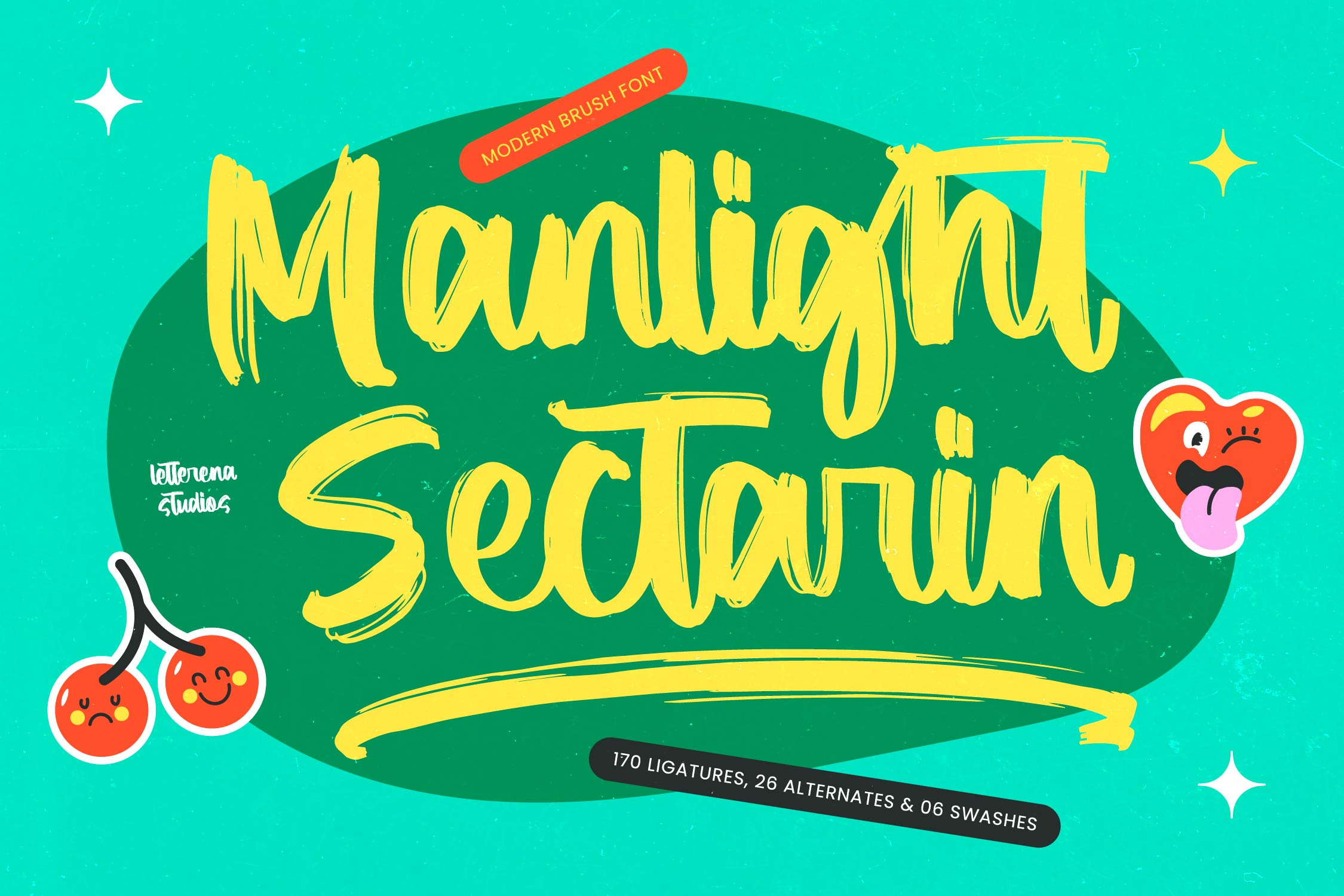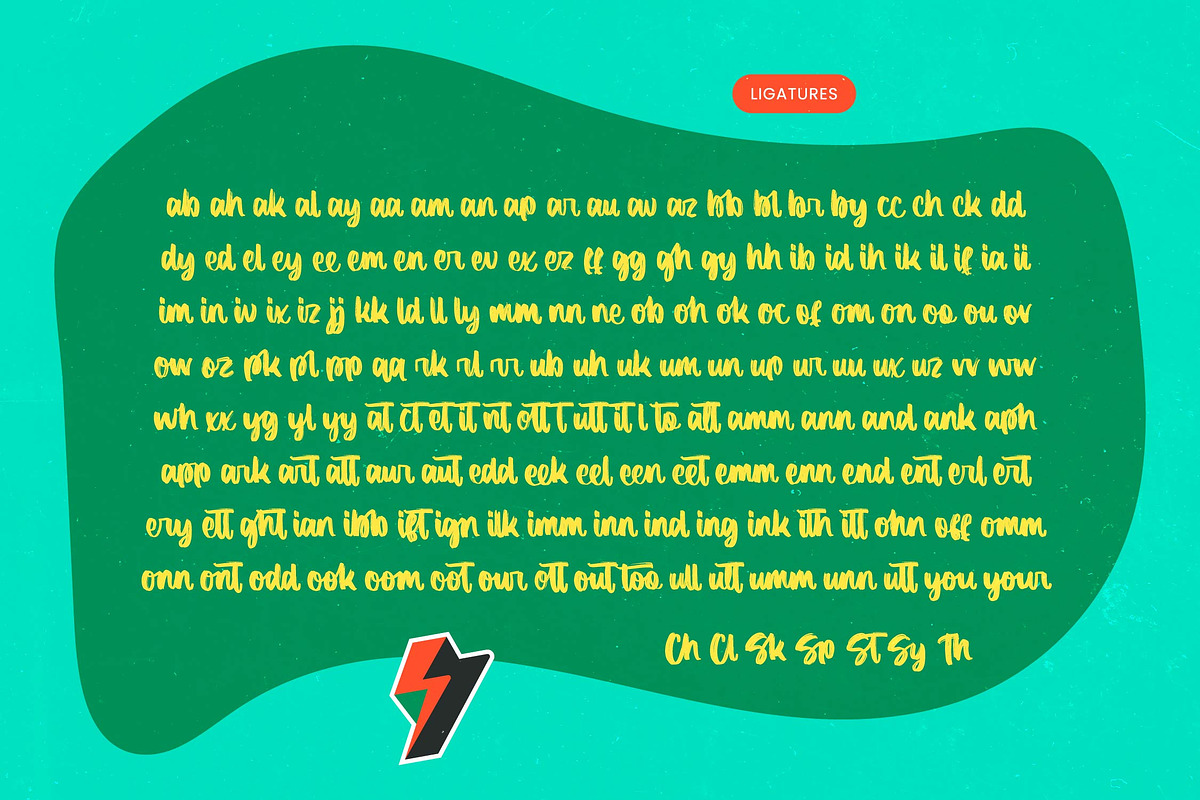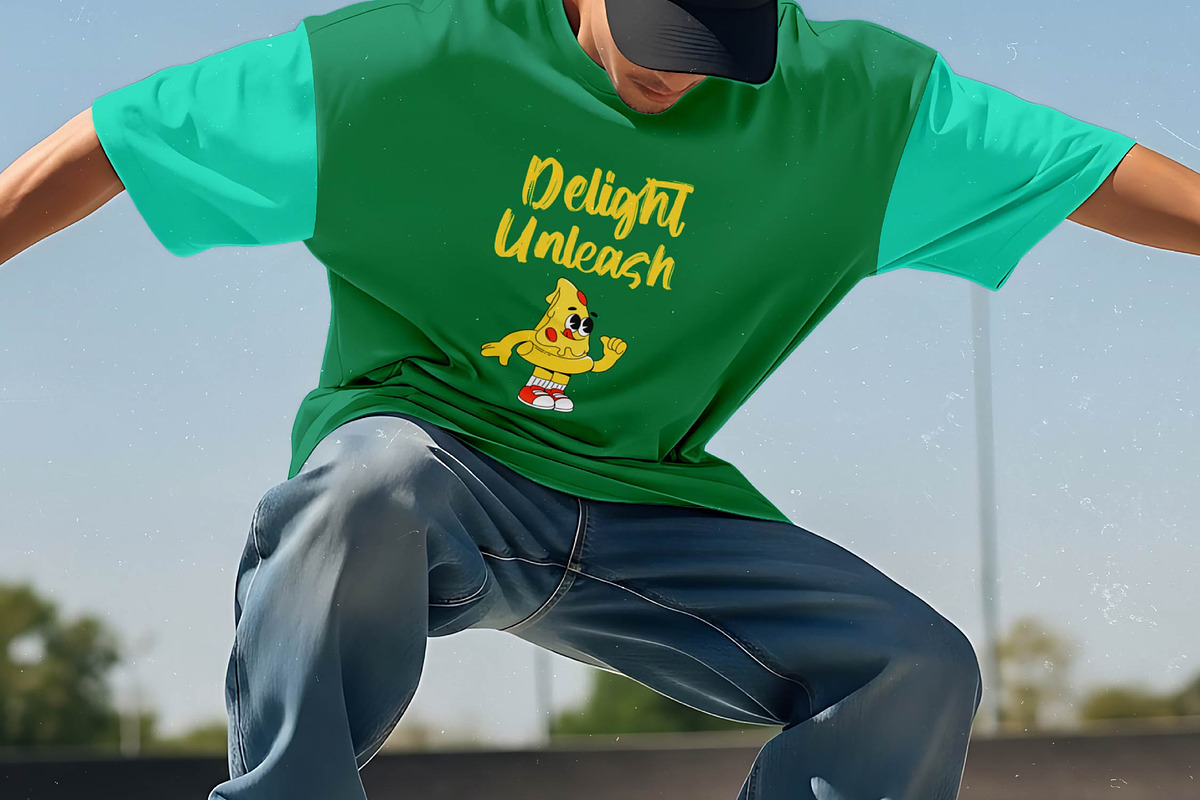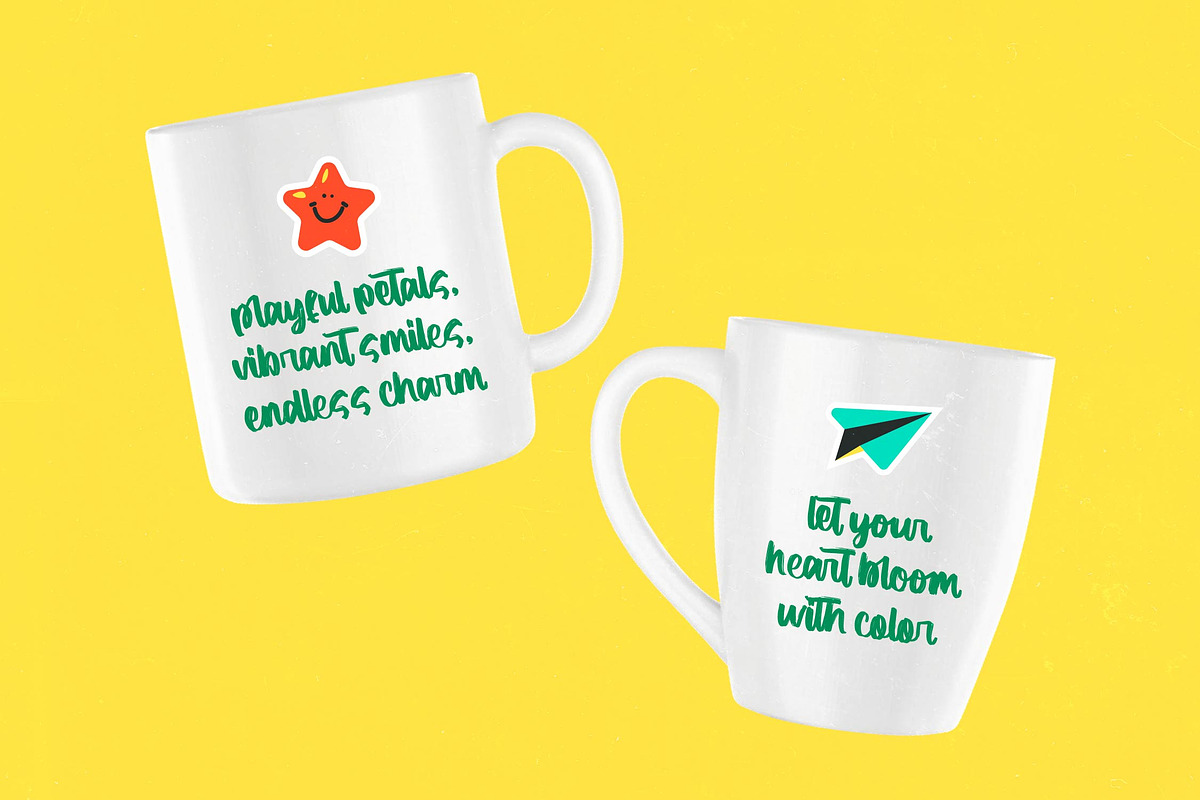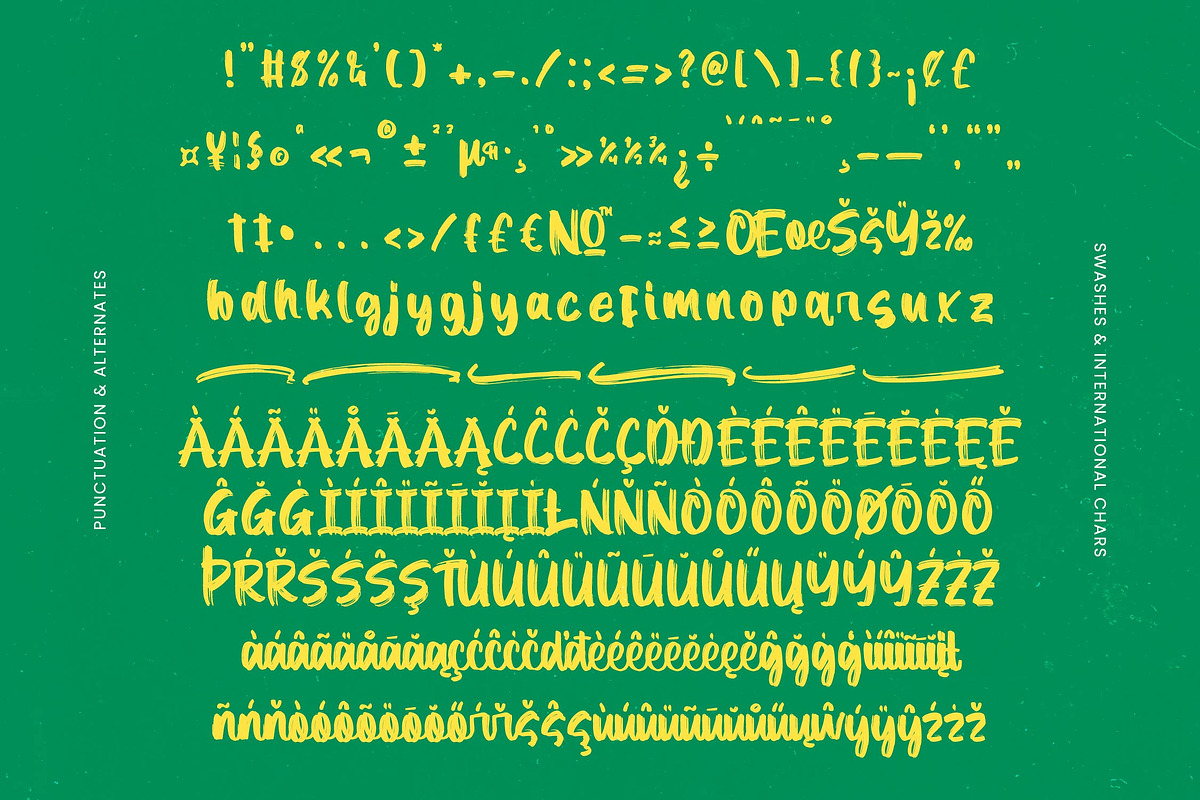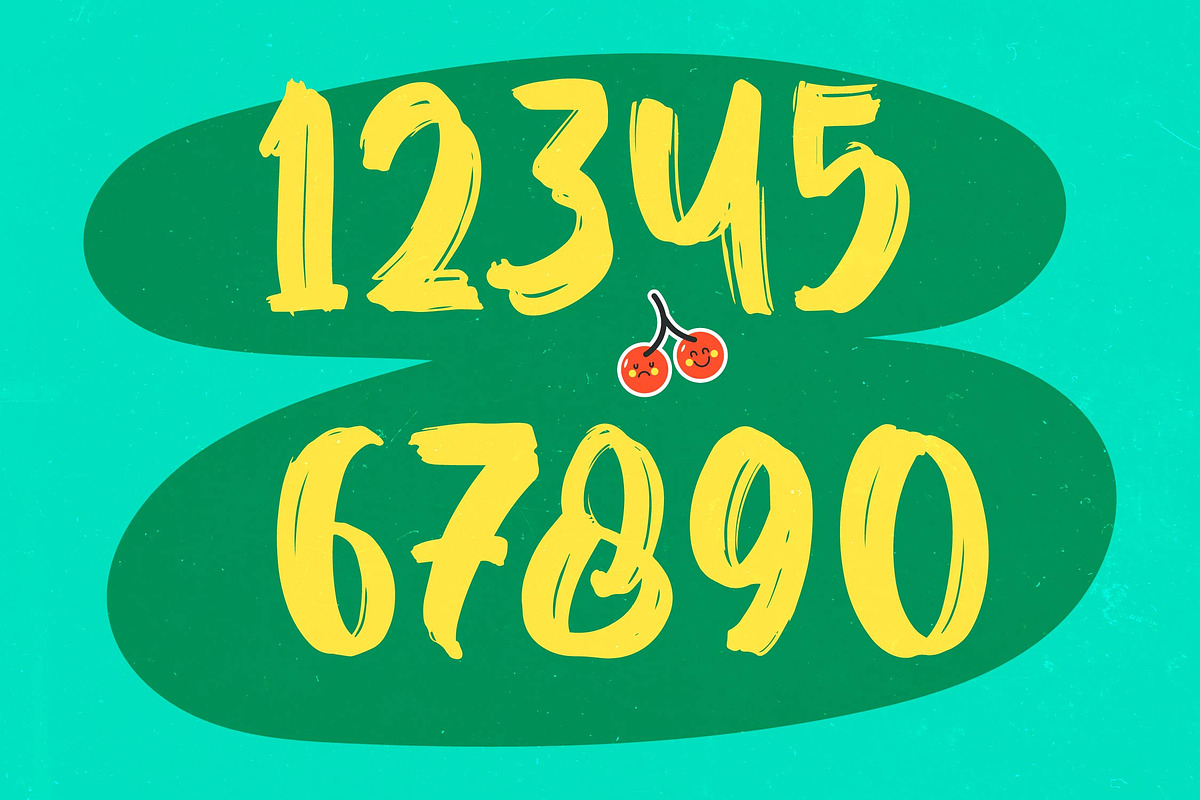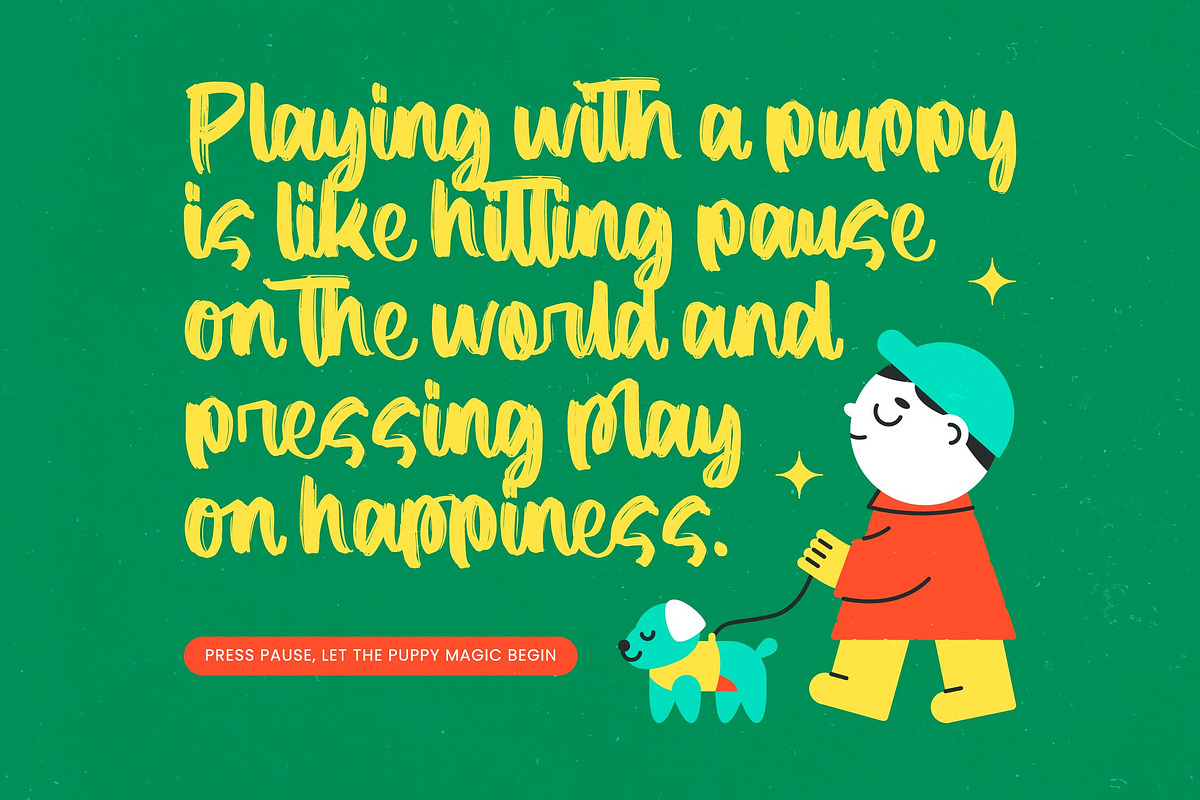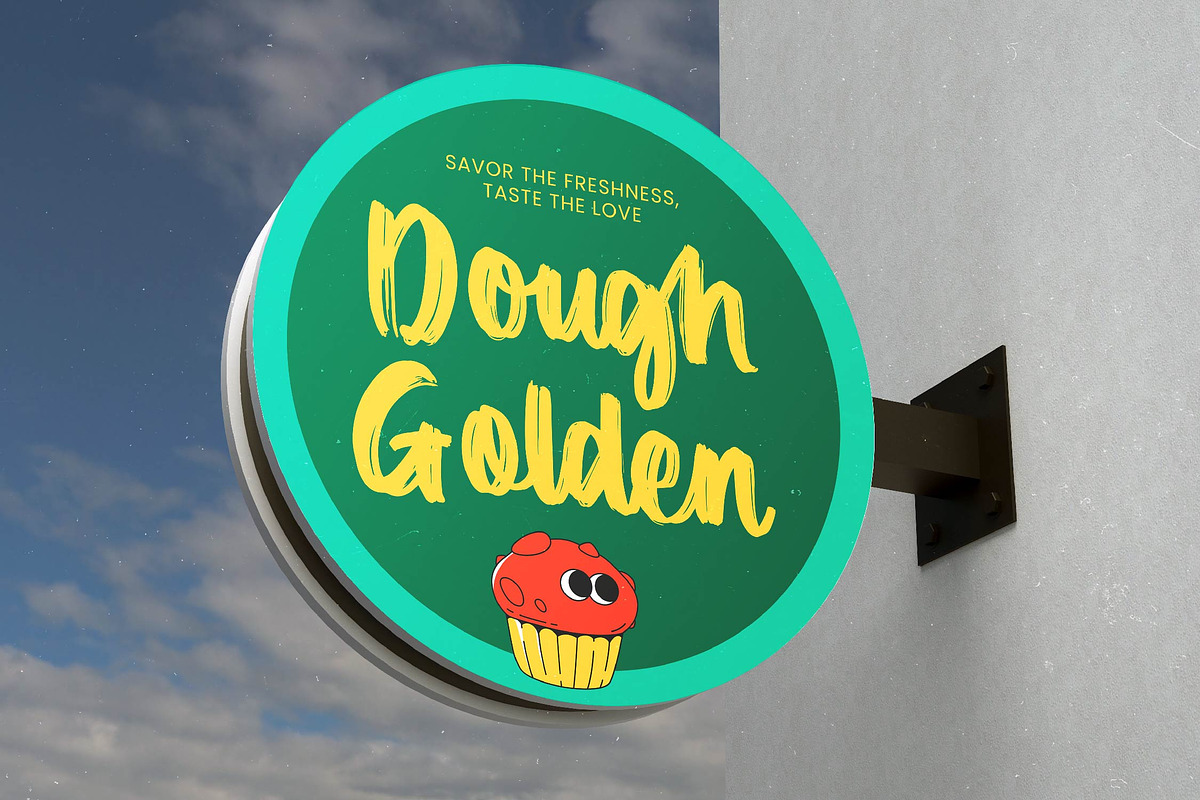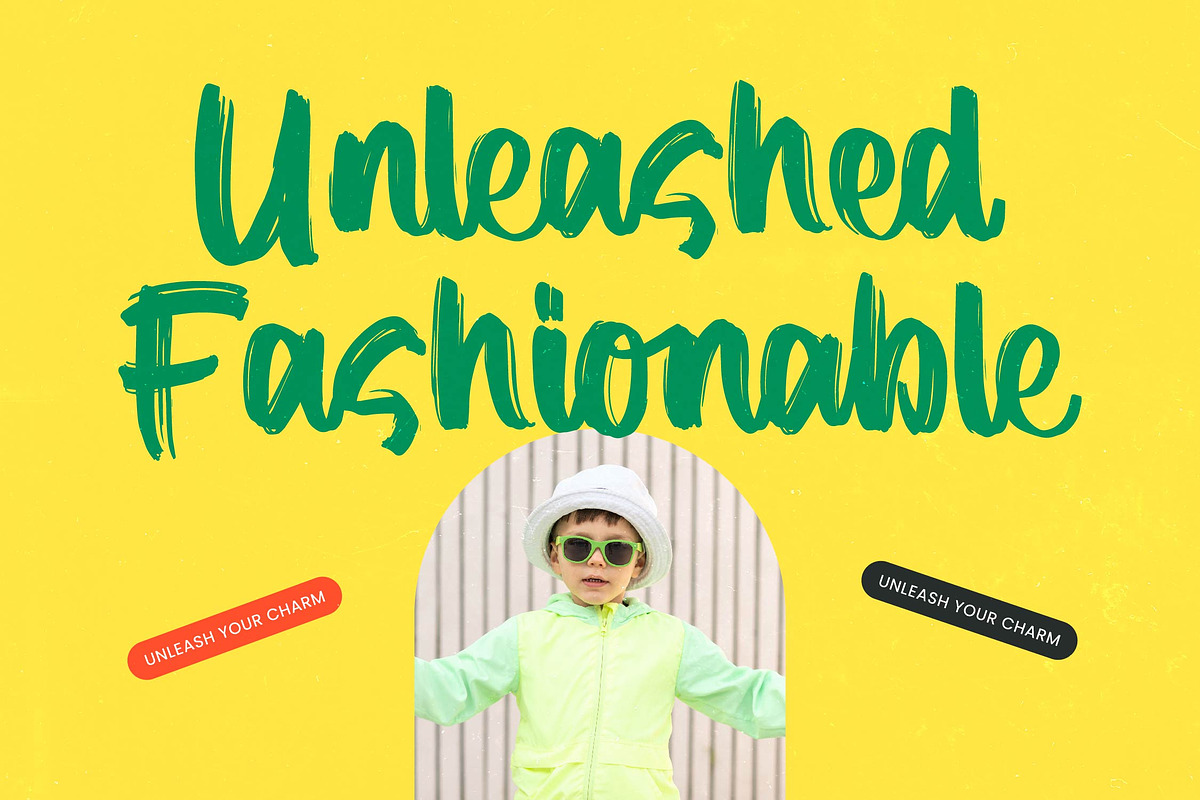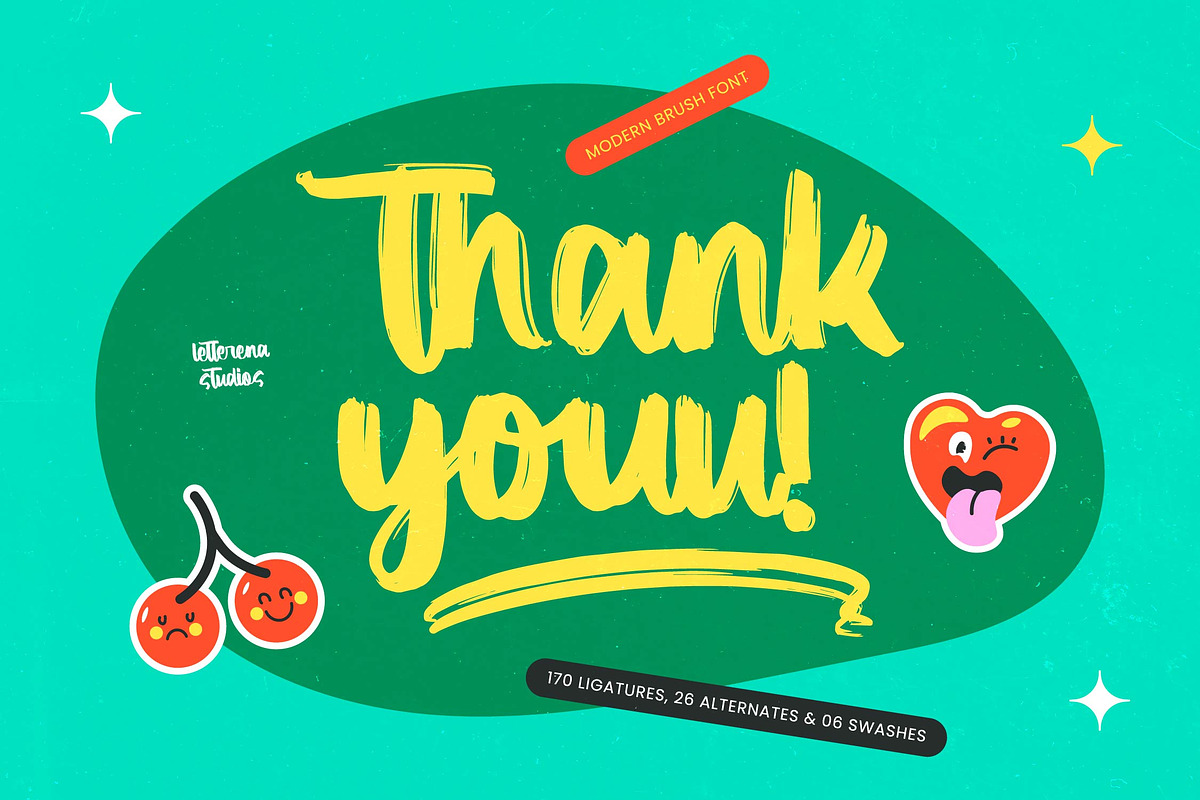
Manlight Sectarin- Modern Brush Font
Manlight Sectarin- Modern Brush Font , The Manlight Sectarin typeface brings an unstoppable burst of creative energy to your canvas, blending raw hand-drawn textures with a contemporary aesthetic. It is the perfect choice for designers who want to break away from the ordinary and inject their work with a bold, human touch.
Inspired by the fast-paced world of urban street art and the fluid motions of freeform calligraphy, this font captures the essence of a physical paint brush meeting paper. The visible grit and varying stroke weights reflect a spontaneous, artistic process that feels both authentic and stylishly unrefined.
This typeface exudes a vibrant personality that demands attention through its modern serif display sensibilities and unique luxury typography flair. While it leans into a high-contrast serif vibe via its thick and thin strokes, it remains a powerful tool for editorial font layouts and high-level branding impact.
Aligning perfectly with the current modern serif trend, this brush script offers a refreshing alternative to traditional editorial display fonts. It taps into the demand for character-driven typography that prioritizes individuality and handcrafted charm over digital perfection.
From bold logo design to cohesive visual branding, this font shines across various applications including editorial spreads and eye-catching packaging. It is equally at home in edgy fashion campaigns or adding a personalized touch to high-end wedding stationery.
The package is incredibly versatile, featuring a massive library of 170 ligatures and 26 unique alternates to ensure your designs remain one-of-a-kind. With 06 decorative swashes and full multilingual support including international characters, it provides everything needed for global projects.